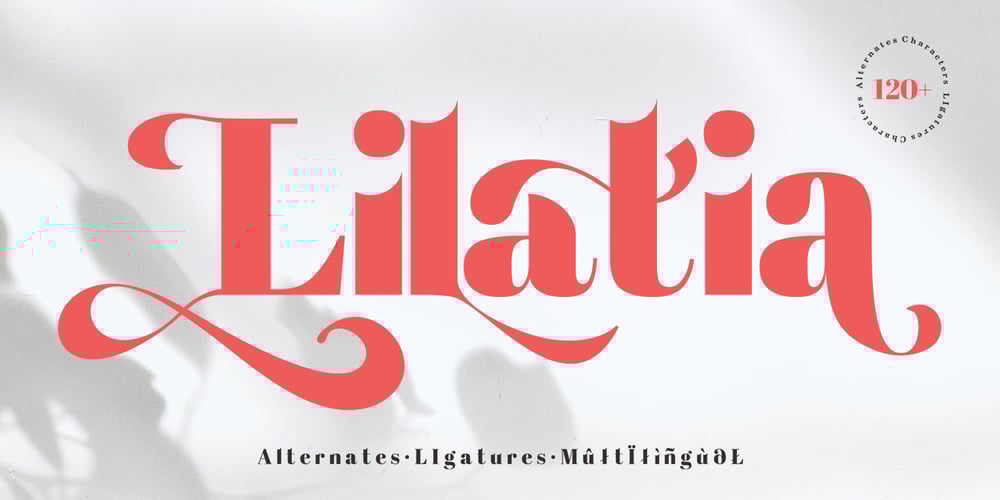
Lilatia
Lilatia font
Lilatia Font Family was designed by Teuku Muhammad Zaki and published by Zaki Creative. Lilatia contains 1 styles and family package options. Lilatia is a versatile and elegant typeface designed to bring a sense of sophistication to any project. With its unique combination of classical and modern elements, Lilatia features multilingual support, making it accessible for a global audience. The font is equipped with alternate characters and ligatures, providing creative flexibility and allowing designers to craft visually captivating text with ease.Lilatia is perfect for branding, editorial design, invitations, logos, and more, offering both style and functionality. Whether you need a typeface for professional or creative projects, Lilatia delivers a polished, high-quality experience.